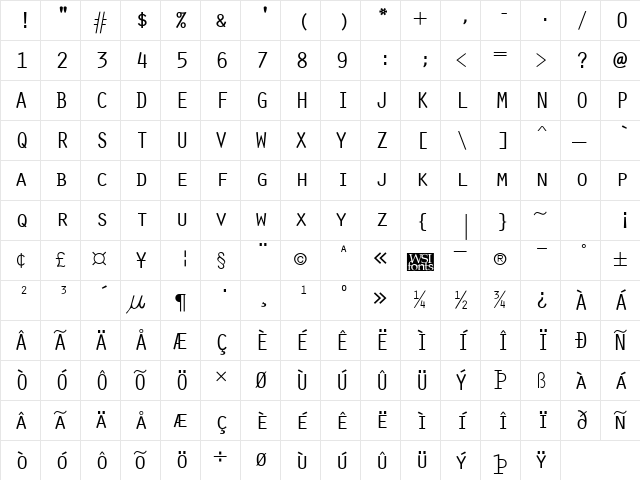
Oracle Regular
Design Context for Oracle Typeface
Oracle takes a measured approach to typography — its balanced proportions and neutral character make it a reliable workhorse for both digital and print work.